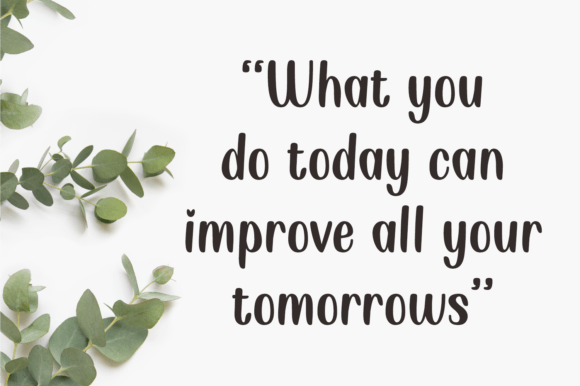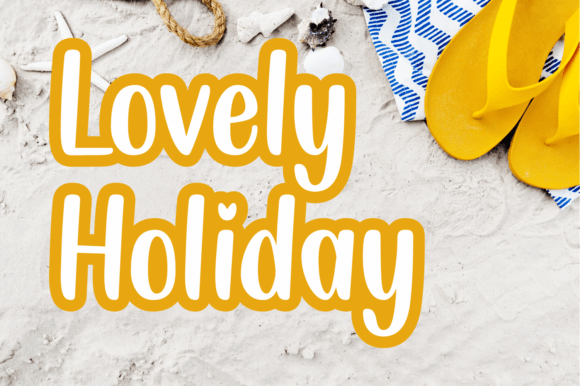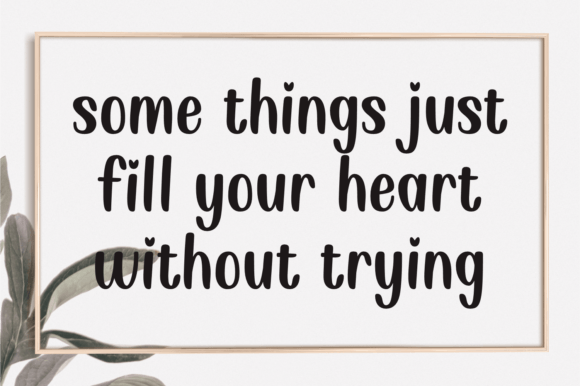
Introduction to Rellyna Font Font
Fonts play a crucial role in design, and the Rellyna Font font is a typeface that brings both character and versatility to any project. Whether you’re working on a branding project, a website, or a print design, the Rellyna Font font offers a unique style that can elevate your work.
Rellyna is a simple and clean handwritten typeface.
Its simplicity makes it suitable for a wide range of applications and ensures readability across different mediums Rellyna is perfect for various design applications, including branding, packaging, invitations, and more.
Key Features of Rellyna Font Font
Why Choose Rellyna Font Font?
The Rellyna Font font is more than just a typeface – it’s a design tool that helps you communicate your message with style and clarity. Its unique character set and versatile design make it suitable for a wide range of applications, from elegant invitations to bold headlines.
With its carefully crafted letterforms and balanced proportions, the Rellyna Font font ensures readability and visual appeal across all mediums.
What makes Rellyna Font font special?
The Rellyna Font font stands out with its unique design, exceptional readability, and versatility across various design applications.